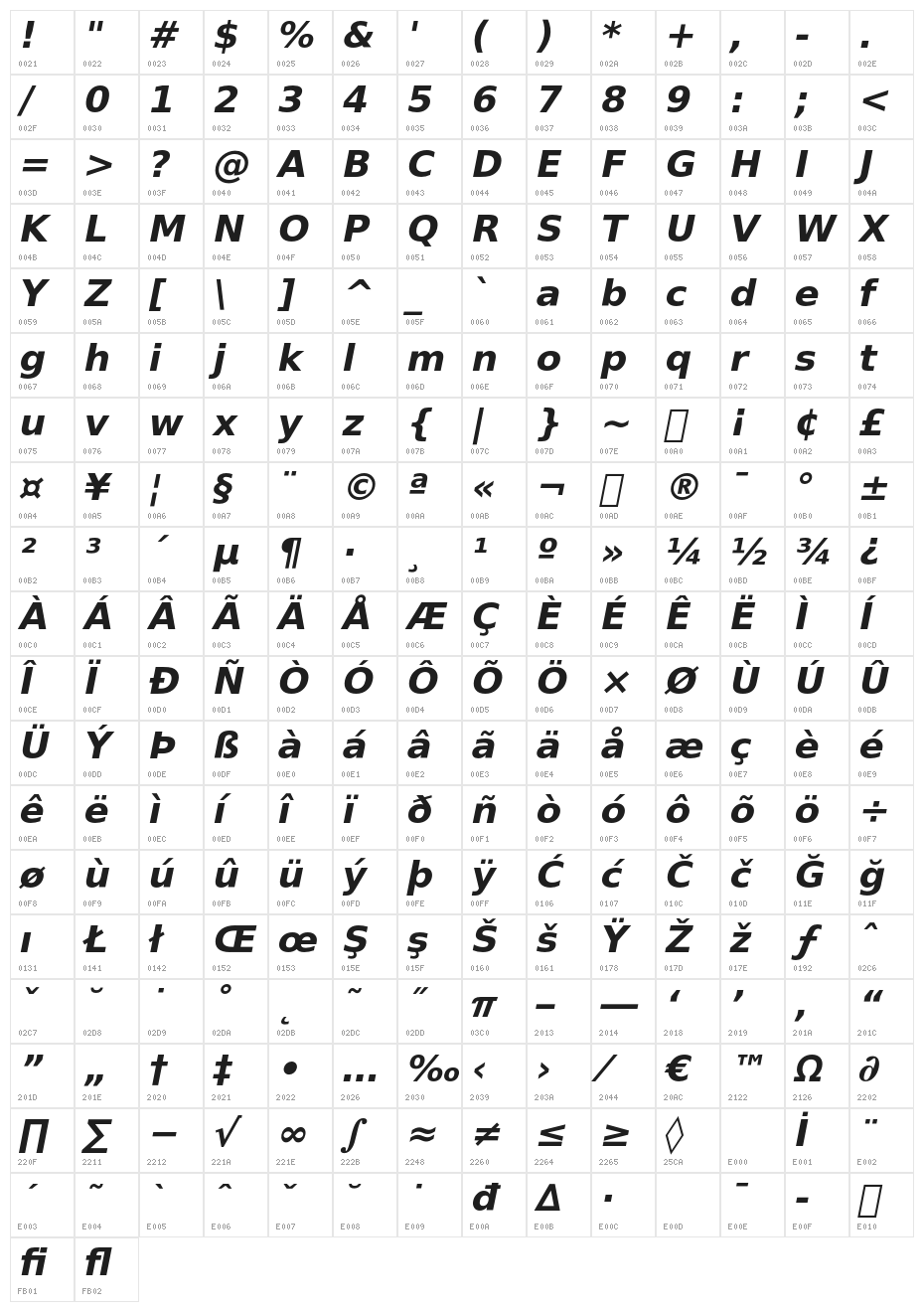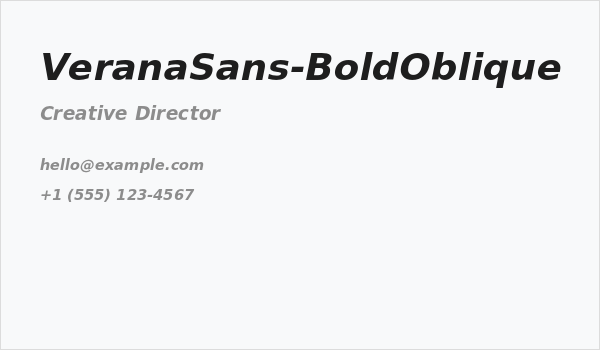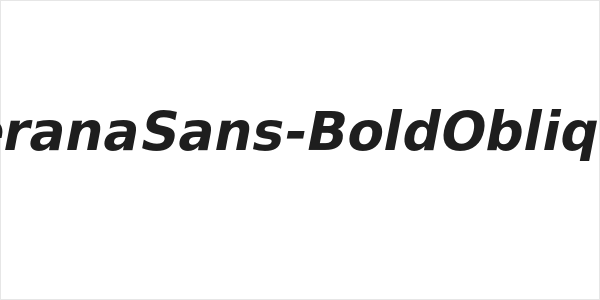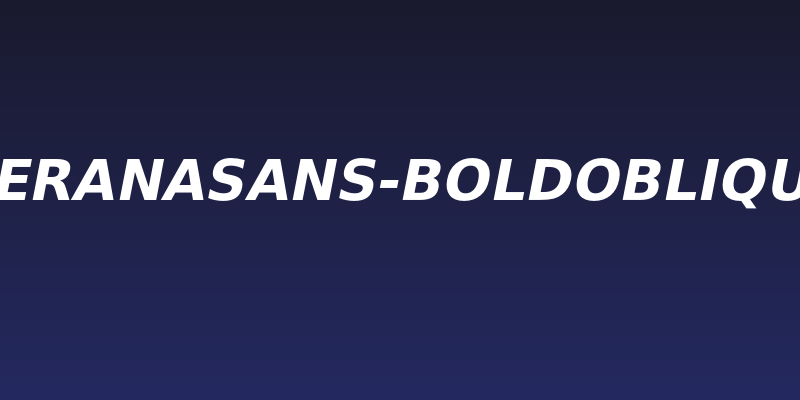
VeranaSans-BoldOblique Font
VeranaSans-BoldOblique Description
This font exhibits a bold and oblique style, characterized by its strong presence and slanted orientation. The sans-serif design ensures clean and modern aesthetics, making it highly legible across various sizes. Its bold weight adds emphasis and authority, while the oblique angle introduces a dynamic and forward-moving feel. The characters are well-proportioned with consistent stroke widths, contributing to a harmonious appearance. The spacing between characters is normal, ensuring readability without overcrowding. This font is versatile, suitable for both digital and print media, and can effectively convey messages with clarity and impact.
| Use Case | Headlines, Logos, Digital content |
| Proposed Projects | Ideal for branding, advertising, headlines, and digital content where a strong, modern impression is desired. |